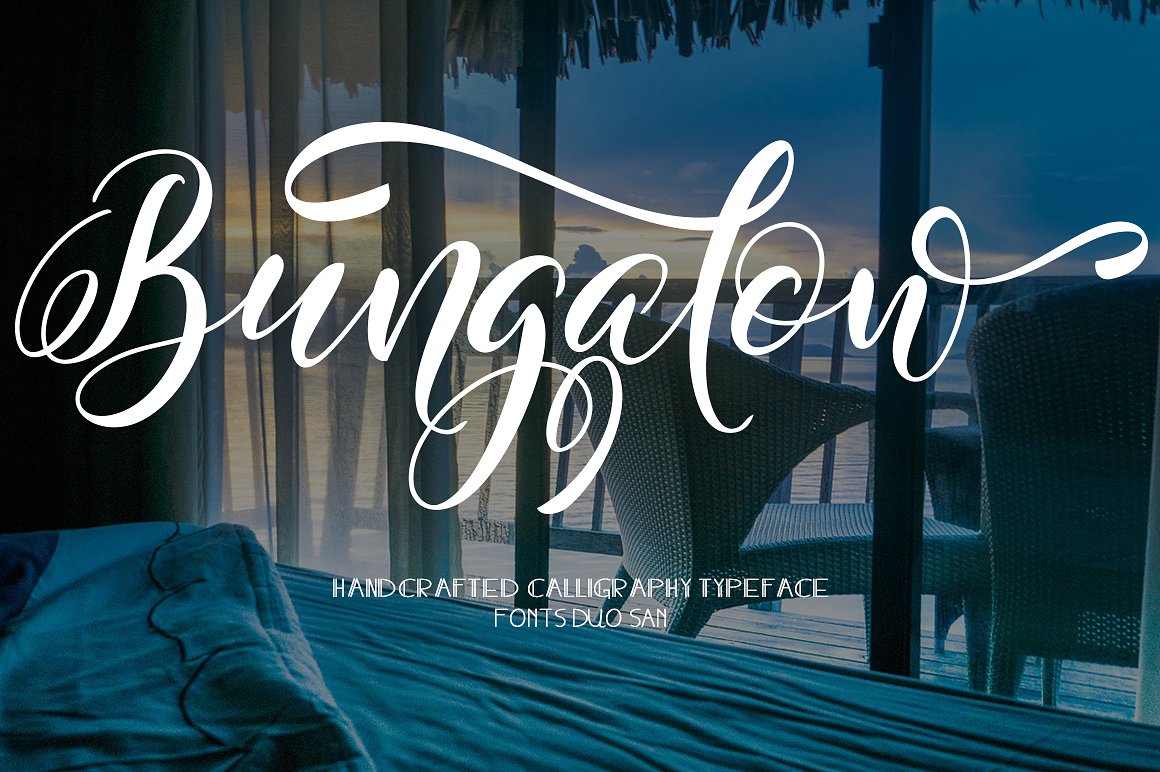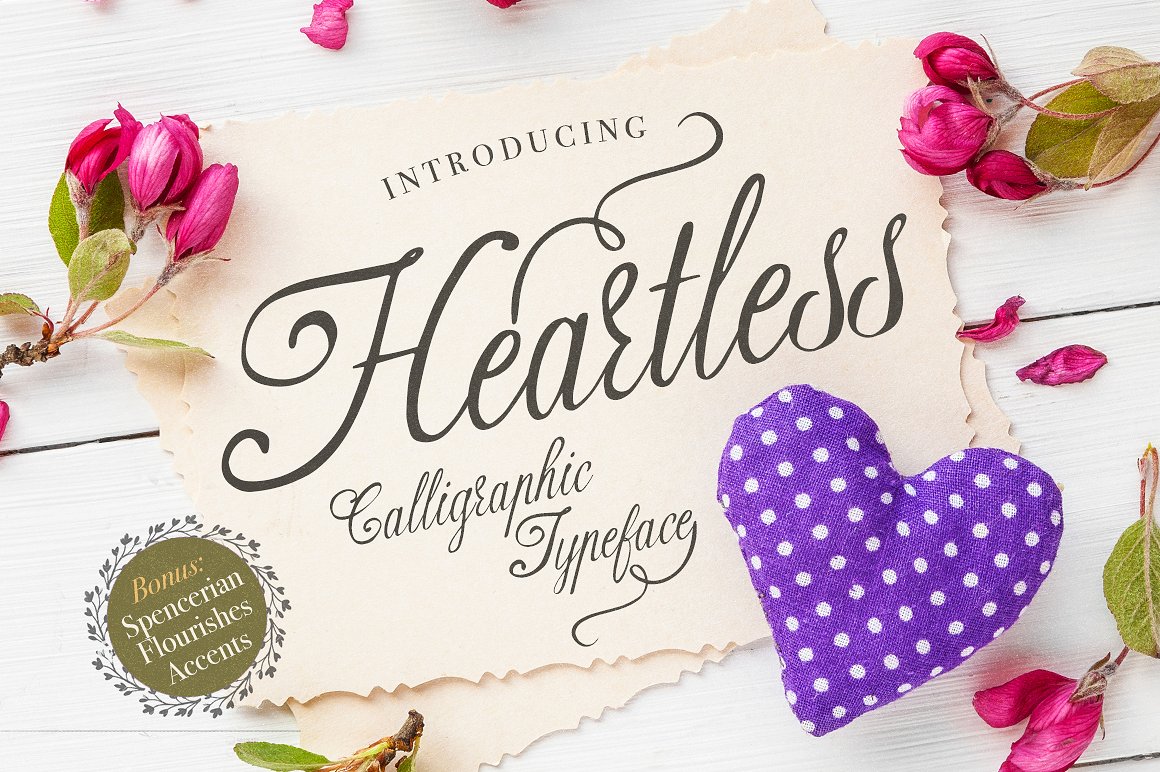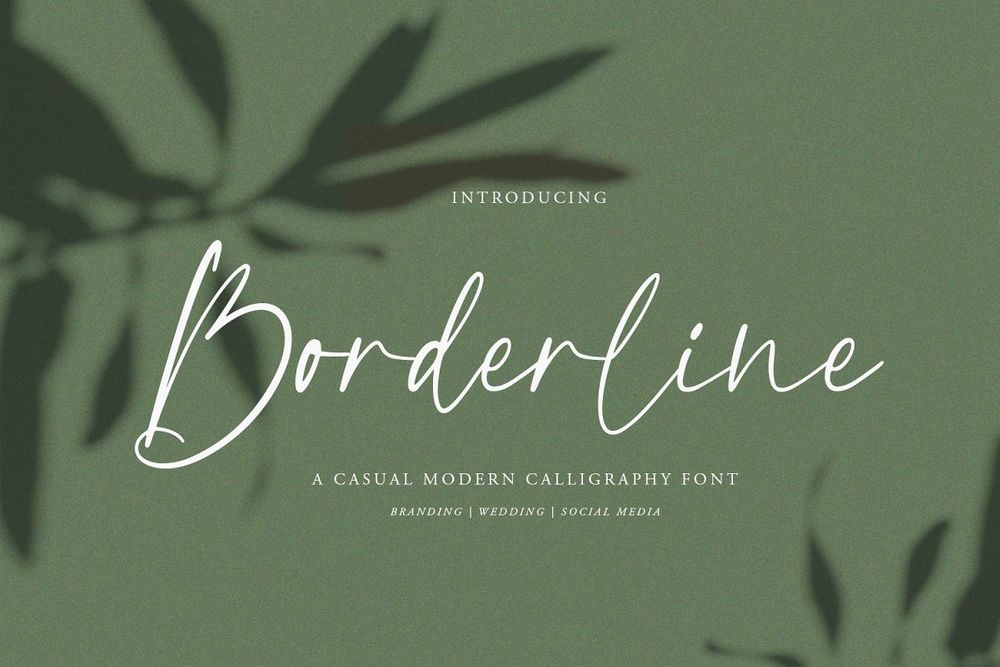
50+ Elegant Calligraphy / Script Fonts for Designers
Using the right font is crucial for your designs. It is possible to bring dramatic changes to a creative work only by changing the font.
When you try to search fonts online you will get a lot of offers, but not all of them are best for creating design projects. And it gets more challenging when you are looking for specific types of fonts, i.e. calligraphy fonts. So why we handpicked and maked a list of 50+ calligraphy / script fonts available to fit your design right now.
All of these 50+ calligraphy / script fonts could be used in graphic designs, digital printing, online branding or any other related fields.
Golden Hills Script
Golden Hills is a beautiful script inspired by handlettering works. Golden Hills has many alternative characters, also come with 2 style end swashes with 4 different length and ligatures. Great for create lettering works, logotype, tshirt design, packaging design, signboard, poster, and many more.
Charma it is a Calligraphy chick font with exquisite accents. It is perfect for branding, wedding invitations and invitation cards and many more.
Borderline casual Calligraphy Font that is luxurious in a casual and distinctive style that is perfect for your branding design, and will also be very beautiful in your wedding invitations and business cards and especially for your brand name logotype.
Romansan is a new romantic modern calligraphiy font with exquisite accents, and distinctive style that is perfect for your branding design. Modern calligraphy with many alternatives. Now this is an opentype!
VIKSI – Free Script Font
Charlotte – Free Script Typeface
Introducing Restaurants Script Font! a new fresh & modern script with a handmade calligraphy style. This font are perfect for wedding postcard. Or you can create perfect and unique design of your logo, blog, stationery, marketing, magazines and more 🙂
Heartless Script
Heartless is a fully handwritten calligraphy script with basic latin letters set. This font is cool for wedding, event, invitation, headers, display, logos, packaging, greeting card, etc.
Free Olivia Script Font
A modern calligraphy typeface, Olivia is both sophisticated and graceful and is an exclusive from The Font Bundles Store. Complete with 351 glyphs, you can use this font for multiple purposes such as Wedding Invitations, Greeting Cards, posters, wall hangings, gifts and much much more.
Bungalow
A beautiful handcrafted letters are transformed into font! This font has a unique character uppercase combined with letters bungalowsan and flowing feel that is perfect for use in logo / wordmark, badges, sign boards, posters, text titles, clothing, wedding invitations, etc. The font has many features OpenType like ligature, alternative style, swash, etc., and supports multiple languages. You will also get ready made logo templates and icons in the theme of nature!
Naira – Free Script Font
Naira Script is a modern calligraphy script from Ndroadv that features a very fun, fresh and simple design. This font is extremely versatile and features many alternate characters & ligatures so you can create beautiful work. Naira Script can used for various purposes such as logos, titles, wedding invitations, letterhead, labels, newsletters, signage, posters, badges, etc.
Castilla Script
Castilla Script, is a calligraphy wavy, modern and clasik, so soft, perfect for your next design, such as logos, printed quotes, invitations, cards, product packaging, headers and anything else about your imagination.
Rachella Script Free Typeface
Rachella Script Free Typeface is suitable for Apparel Brand, Logotype, any greeting cards, Painting design style, or any design that needs natural and personal touch. Mix and match the alternate characters to add an attractive message to your design.
Priscilla Script Free Typeface
Priscilla Script Free Typeface is a new modern calligraphy Typeface Fonts collection from Ianmikraz studio, combines from copperplate to contemporary typeface, classic, beauty and elegant touch.
Priscilla Script Free Typeface features 282 glyphs and 109 alternate character contain with opentype features. Swash Alternates, Stylistic Alternates, Standart Ligature and more. You can access all those alternate characters by using OpenType savvy programs such as Adobe Illustrator, Adobe InDesign and CorelDraw X6-X7.
Canvas Script Font
Antelope – Modern Calligraphy Typeface
Antelope Modern Calligraphy. This font was designed by handwriting, and it has a modern and unique forms of calligraphy, the writing style is very natural.